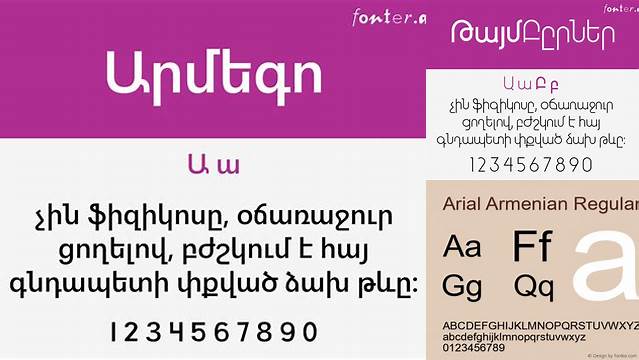
Are you on the hunt for Arial Armenian font free download resources? Look no further! This comprehensive guide dives deep into everything you need to know about this versatile and essential font. We'll explore its history, design characteristics, licensing, and, most importantly, where you can find legitimate and safe download sources. So, let's get started and equip you with the knowledge to enhance your Armenian typography!
What is Arial Armenian?
Before we jump into the Arial Armenian font free download details, let's understand what exactly this font is. Arial Armenian is a typeface designed to support the Armenian alphabet. It's part of the larger Arial font family, a widely used sans-serif typeface known for its clean, legible design. The Armenian version specifically incorporates the unique characters and glyphs required for writing in the Armenian language.
The Arial font family, including its Armenian variant, was initially created by a team at Monotype in 1982. It was intended as a more modern, commercially viable alternative to Helvetica. While Arial shares similarities with Helvetica, there are subtle differences in the shapes of certain characters and the overall proportions. These distinctions contribute to Arial's distinct personality and readability.
Arial Armenian plays a crucial role in digital communication and publishing. It allows Armenian speakers to create documents, websites, and other digital content that is both visually appealing and easily readable. The font's clear design ensures that the complex Armenian characters are rendered accurately and legibly, regardless of the screen size or printing resolution. This is particularly important for online content, where readability is paramount for engaging readers and conveying information effectively.
The availability of a high-quality Armenian font like Arial Armenian is essential for preserving and promoting the Armenian language in the digital age. It empowers individuals and organizations to create professional-looking materials in their native language, fostering a sense of cultural identity and linguistic pride. Furthermore, it facilitates communication and collaboration among Armenian speakers worldwide, bridging geographical barriers and connecting communities.
Key Features of Arial Armenian Font
When searching for an Arial Armenian font free download, it's helpful to know the key features that define this typeface. These characteristics contribute to its overall usability and aesthetic appeal:
- Sans-serif design: Arial Armenian is a sans-serif font, meaning it lacks the small decorative strokes (serifs) found at the ends of letterforms. This gives it a clean, modern appearance, making it suitable for a wide range of applications.
- Clear and legible characters: The font is designed with readability in mind. The character shapes are distinct and well-proportioned, ensuring that each letter is easily recognizable, even at small sizes.
- Comprehensive Armenian character set: Arial Armenian includes all the necessary characters and glyphs for writing in the Armenian language, including uppercase and lowercase letters, numerals, punctuation marks, and special symbols.
- Consistent weight and style: The font maintains a consistent weight and style across all characters, creating a visually harmonious appearance. This is important for ensuring that text flows smoothly and is easy on the eyes.
- Versatile application: Arial Armenian is suitable for a variety of applications, including body text, headings, titles, and captions. Its clean and legible design makes it appropriate for both print and digital media.
Conclusion: Embrace the Beauty of Armenian Typography